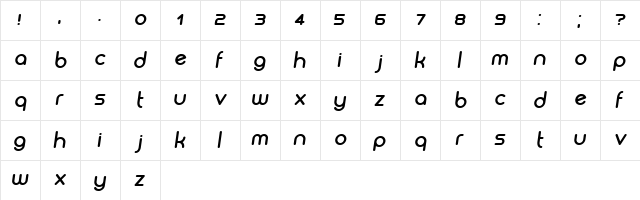
Biysk Bold Italic
Design Context for Biysk Typeface
Biysk offers clean, dependable letterforms without strong stylistic allegiance, making it a practical choice for designers who need flexibility. The dynamic lean of this cut emphasises speed and emphasis in any layout. The heavy weight commands attention and anchors typographic hierarchies.
Pro Tip: Try Biysk for annotation and caption copy alongside an upright companion — the contrast in angle creates a dynamic but ordered typographic system.